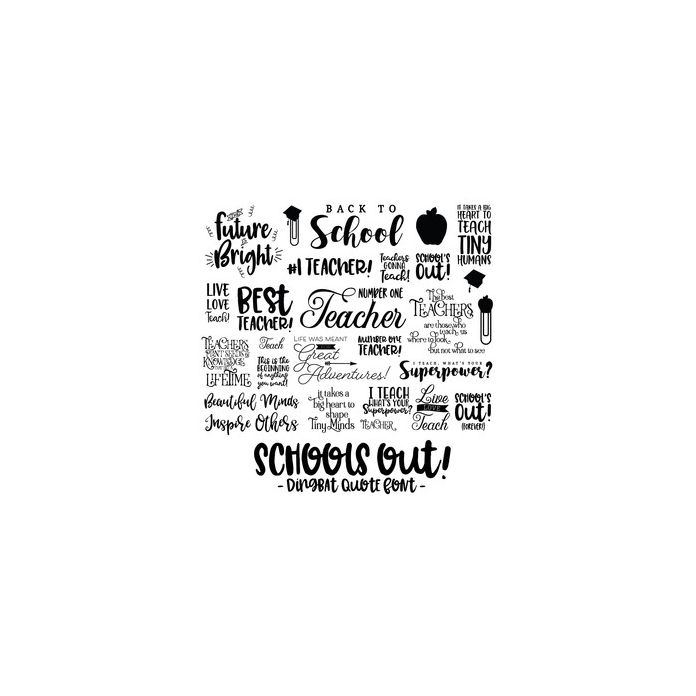
Schools Out Quote Dingbat Font. Includes 26 school and teacher quotes, perfect for planners, wall art, word art, scrapbooking, gifts and more!. All are assigned to an upper case letter starting with 'A' or can be accessed via glyphs. For more design ideas, coordinating designs & products and inspiration, please visit my blog http://www.sarahhurleyblog.com